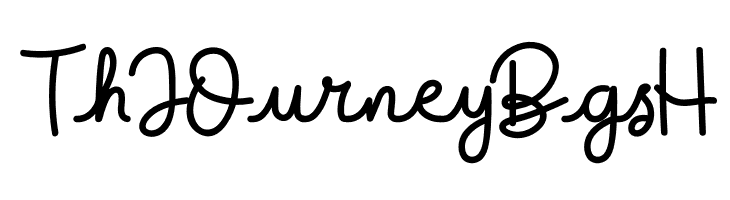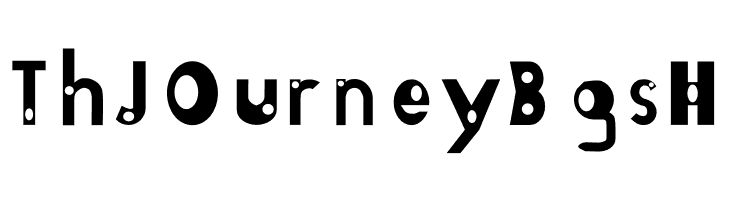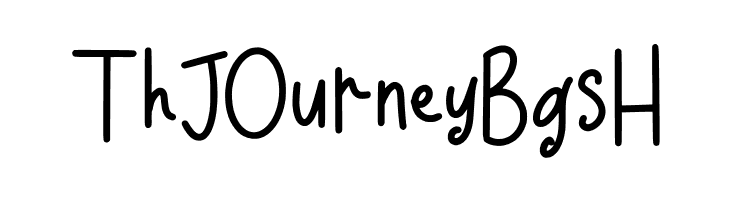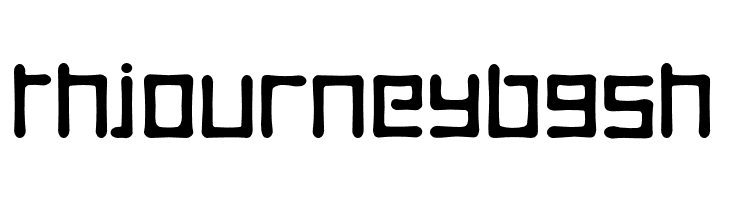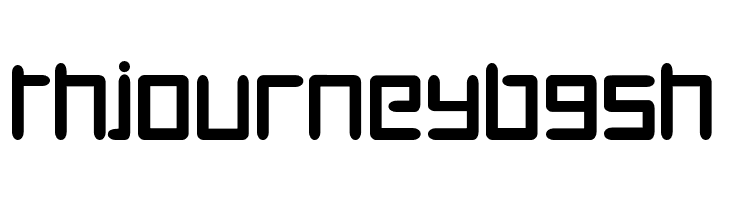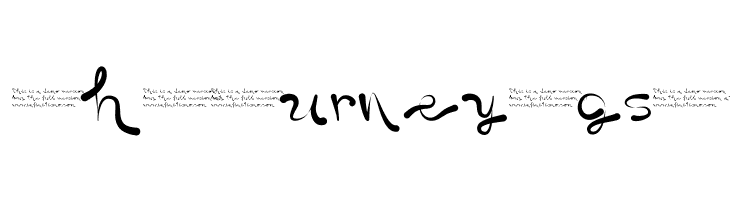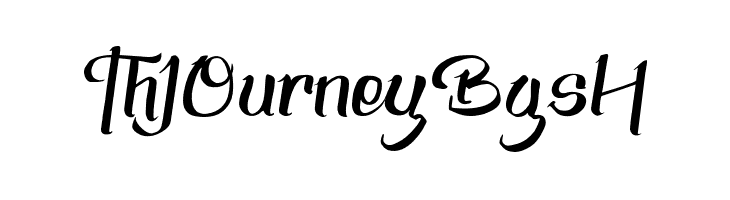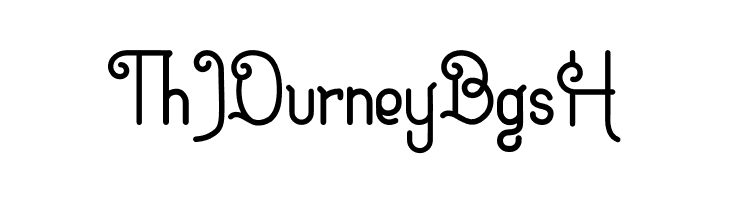
• Destiny
A whimsical and artistic script font with a handwritten appearance.
• Destiny
An artistic script font with flowing, cursive-like lowercase letters.
• Digitalis
A modern, geometric font with rounded edges and bold characters.
• DigitalisBoneface
A bold, geometric font with rounded edges and a modern, playful style.
• downloadme
A playful, casual handwritten font with smooth, rounded edges and consistent stroke width.
• Duffel Bag Personal Use
A playful, handwritten script font with a casual and friendly style.
• Elliot
A dynamic and flowing script font with elegant cursive letterforms.
• EncircleFont
A bold, geometric font with circular cutouts for a playful, modern look.
• Eugiene script
A playful and decorative font with whimsical loops and curves.
• ExciteBold
A bold, modern font with thick strokes and a strong presence.